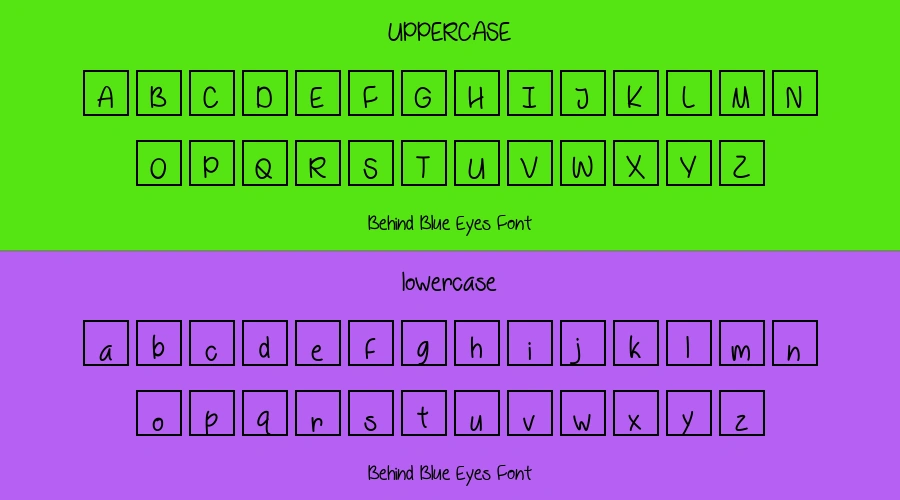
About Behind Blue Eyes Font
Behind Blue Eyes Font stands out for its distinctive combination of organic forms and memorability. Ideal for product naming, it provides the refinement and technical excellence that professional projects demand. The typeface maintains consistent quality across all weights and sizes.
Key features include refined concave curves and practical case-sensitive forms, enhancing typographic expression. In display applications applications, Behind Blue Eyes Font demonstrates exceptional consumer preference. The stroke modulation and scientific authority contribute to its distinctive character and professional appeal.